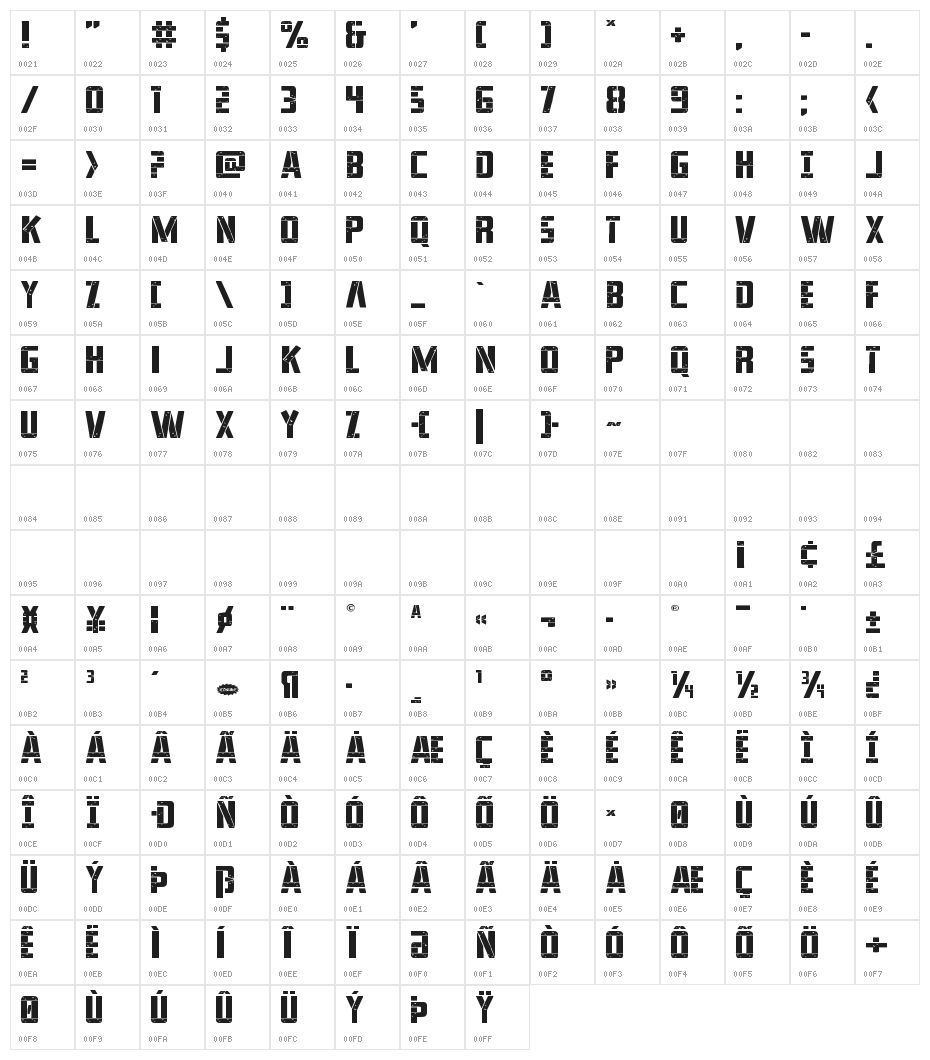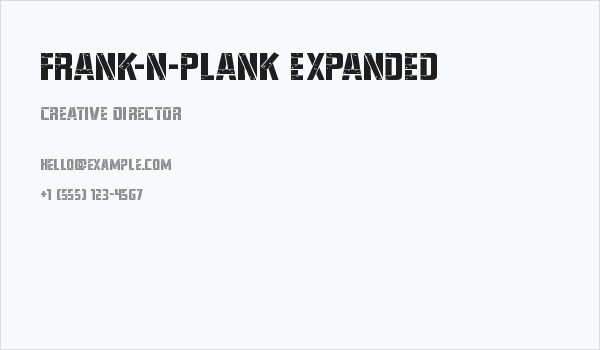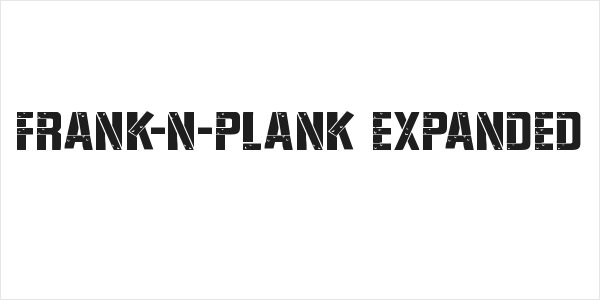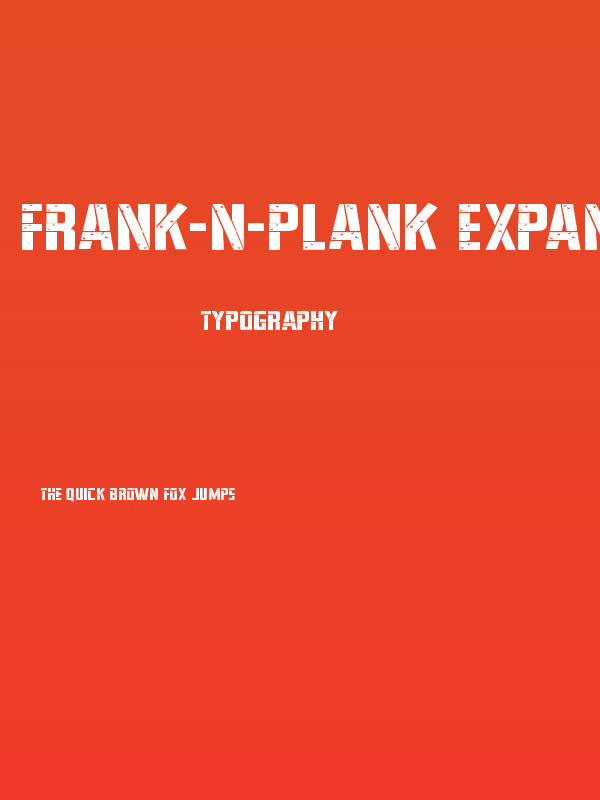
Frank-n-Plank Expanded Font
Frank-n-Plank Expanded Description
This font features a bold, industrial design with a distinct mechanical aesthetic. Each character is constructed with a blocky, geometric style, incorporating rivet-like details that give it a rugged, metallic appearance. The uppercase letters are uniform in height, while the lowercase letters maintain a consistent style, enhancing the cohesive look. The numerals and special characters follow the same design principles, ensuring a seamless integration across all text. The font's expanded width and strong presence make it ideal for impactful visual communication.
| Overall Style | Industrial, Mechanical |
| Proposed Projects | Ideal for branding, posters, signage, and any project requiring a strong, industrial aesthetic. |